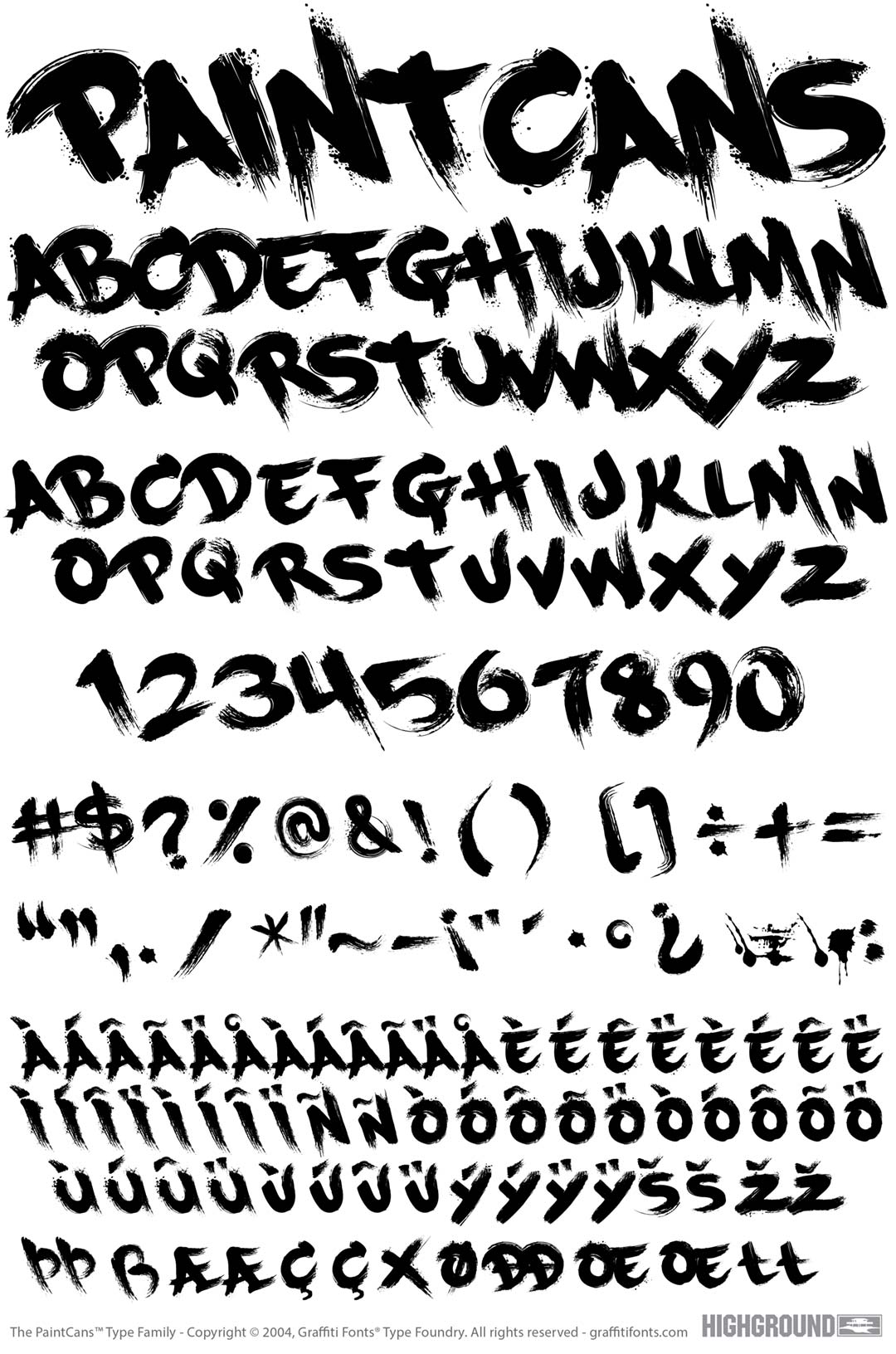
PaintCans Free
PaintCans Free Graffiti Alphabet
PaintCans Free Graffiti Font Family
A very rough & highly detailed paintbrush style complete with streaks & spatter. Letters are danced back & forth a little creating an irregular & rushed feel. This font retains a highly detailed appearance even at very large sizes.